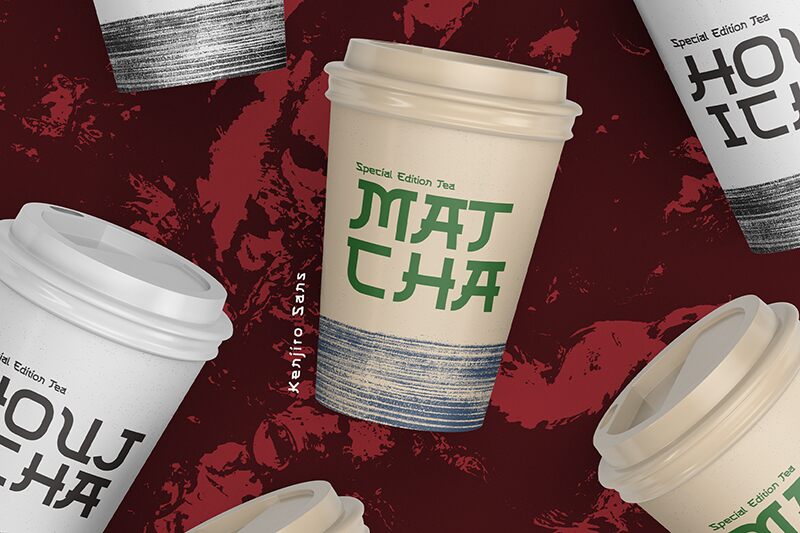
CF Kenjiro font by Creatifont Studios is a foreign free font, ideal for adding contemporary flair to visual projects. The letter design appears mainly industrial, geometric, and structured to give a clean professional touch to visual projects. The font easily conveys a minimalist modern atmosphere for any kind of visual work.
CF Kenjiro’s futuristic and modern elements make it ideal for contemporary applications, especially in the digital world. Add this free font all-caps display typeface to your technology branding, signage, packaging design, and anything that aligns with modern digital aesthetics.